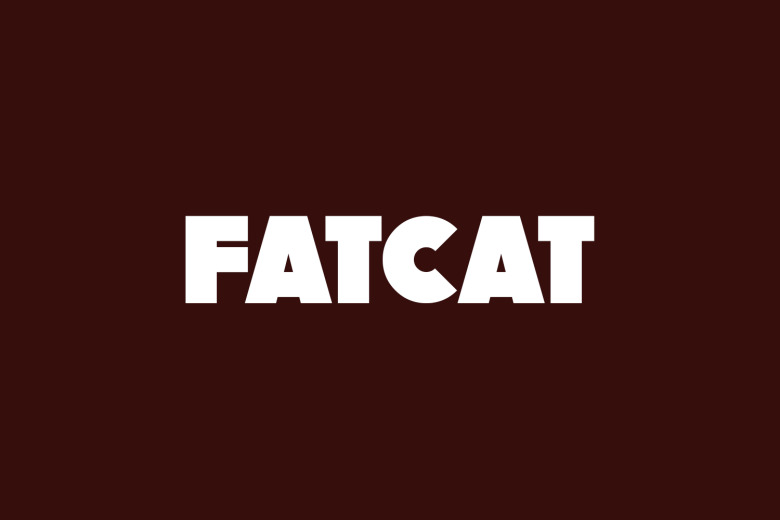
FatCat Font
FatCat is a high quality Sans Serif font that is designed by Darrell Flood and is available for free download and personal use. The free version provides all uppercase and lowercase letters and a few special characters too.
FatCat Sans Serif Font